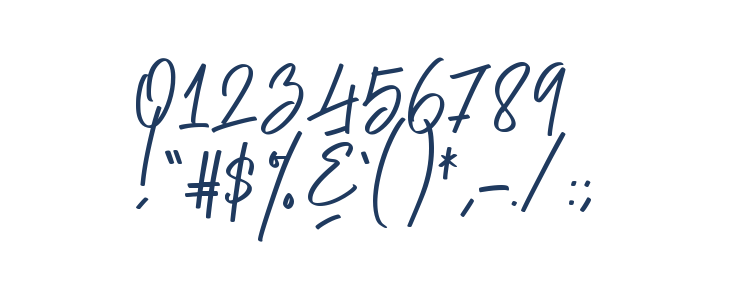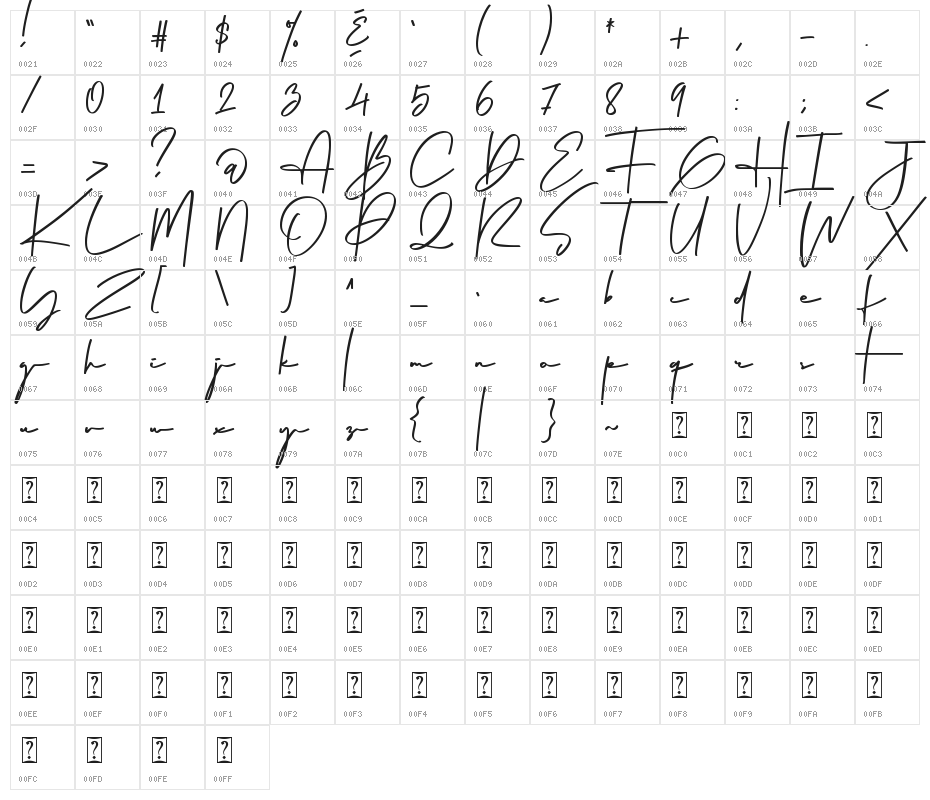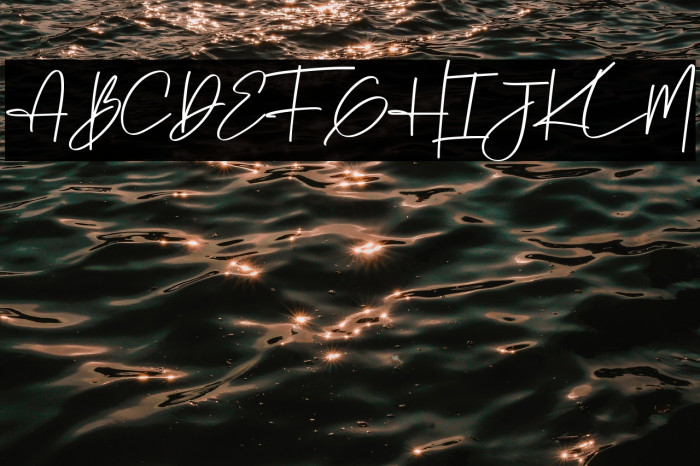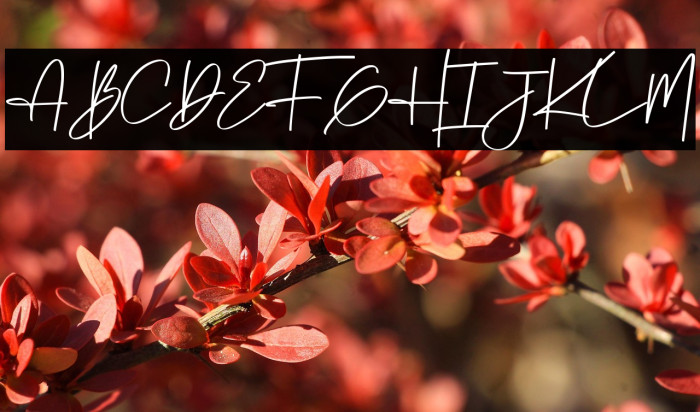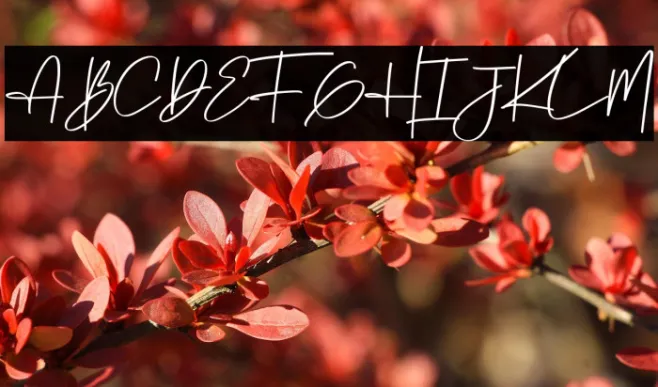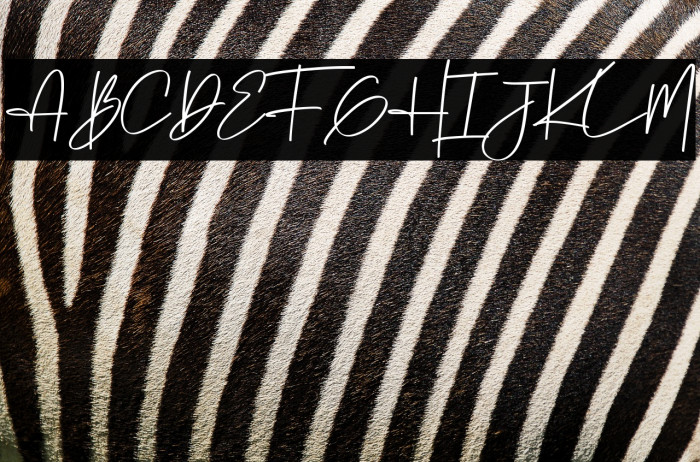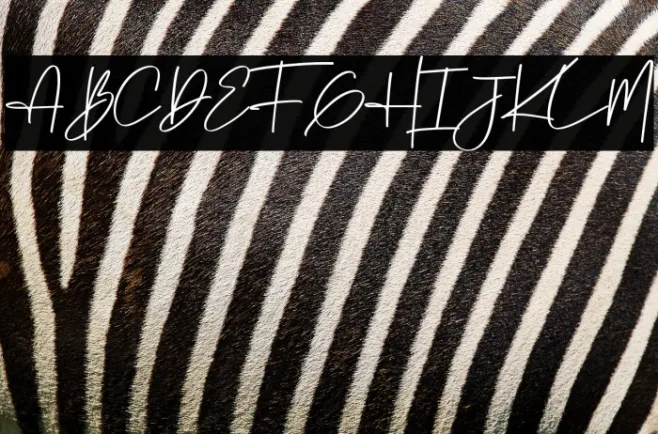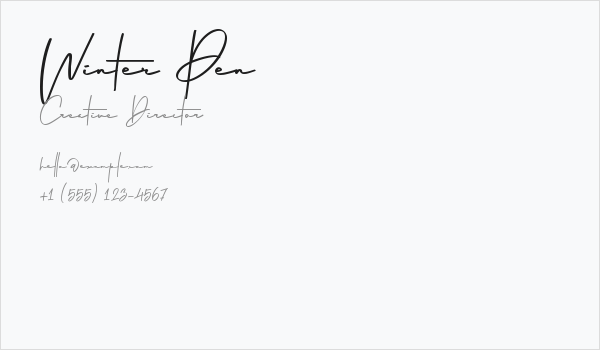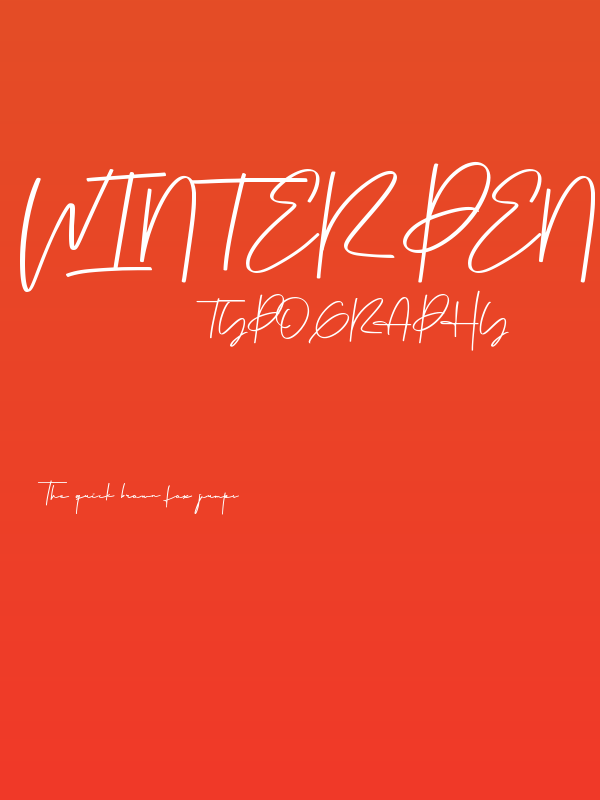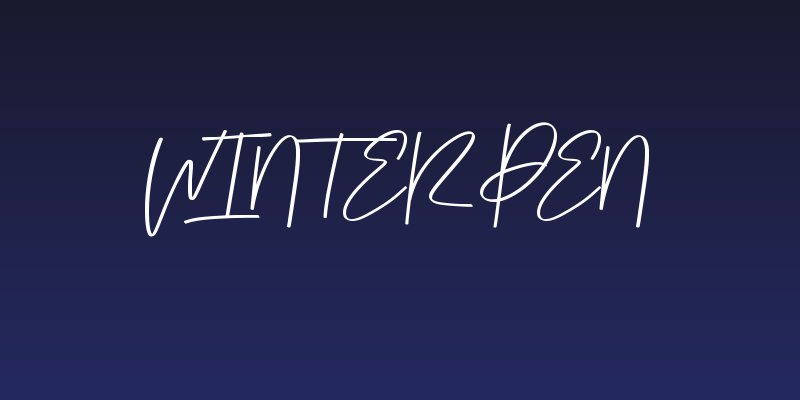
Winter Pen Font
Winter Pen Description
This font exudes a casual, handwritten style with a modern twist. The letters are fluid and dynamic, capturing the essence of a quick, yet stylish penmanship. Uppercase letters maintain a consistent height and are slightly slanted, giving a sense of movement. Lowercase letters are more varied in height, adding a playful touch. The numbers are bold and clear, ensuring readability. Special characters are creatively integrated, maintaining the font's overall aesthetic. This font is perfect for projects that require a personal, informal touch while still being legible and stylish.